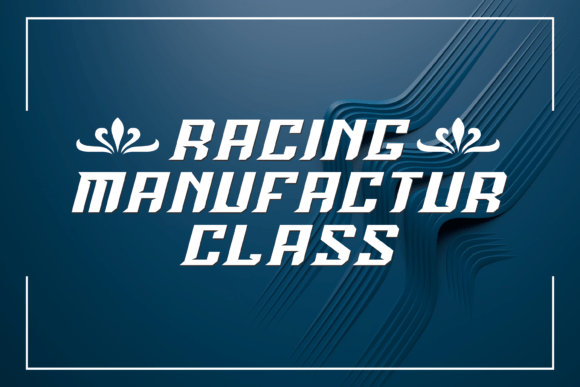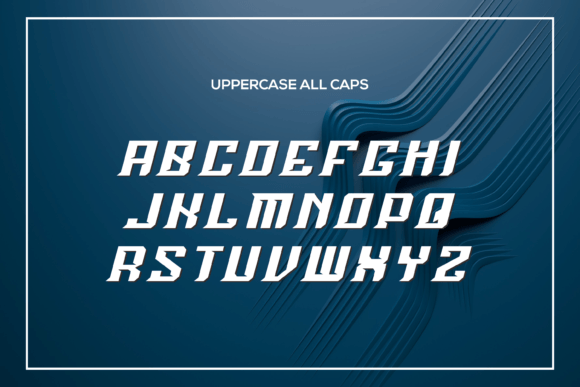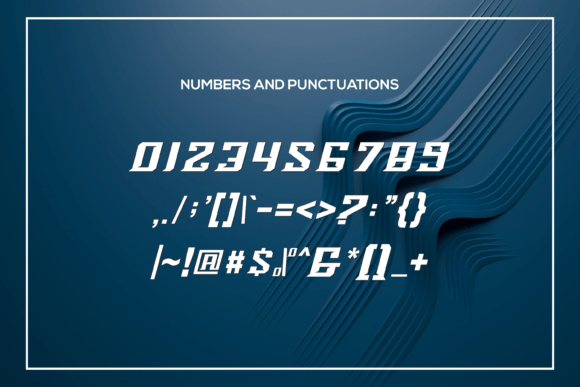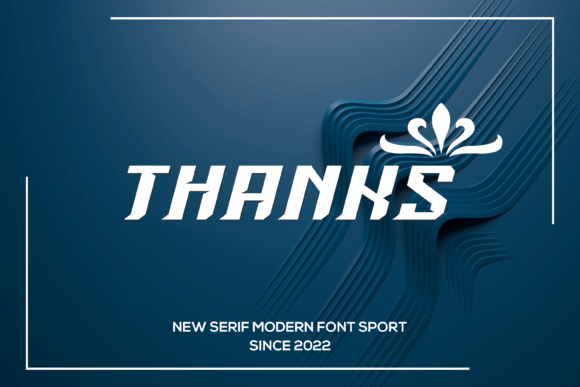
Copsonsport Font: The Ultimate Choice for Sporty Designs
Copsonsport is a cool and modern display font that can elevate your sporty projects to the next level. With its sleek and dynamic design, this font is perfect for designers and crafters looking to add a touch of athleticism to their work. In this article, we’ll explore the features and benefits of Copsonsport, and why it’s the ultimate choice for your sporty designs.
What is Copsonsport Font?
Copsonsport is a display font designed specifically for sports-related projects. Its modern and edgy design makes it perfect for creating bold and eye-catching headlines, titles, and slogans. The font is carefully crafted to convey a sense of energy, movement, and dynamism, making it ideal for sports branding, posters, flyers, and social media graphics.
Key Features of Copsonsport Font
- Modern and Edgy Design: Copsonsport boasts a sleek and contemporary design that’s sure to grab attention.
- Dynamic and Athletic Feel: The font’s unique style conveys a sense of energy and movement, perfect for sports-related projects.
- Highly Versatile: Copsonsport can be used for a wide range of applications, from posters and flyers to social media graphics and branding.
- Easily Readable: Despite its bold and edgy design, Copsonsport remains highly readable, even at smaller font sizes.
Benefits of Using Copsonsport Font
So, why should you choose Copsonsport for your sporty designs? Here are just a few benefits of using this amazing font:
- Stand Out from the Crowd: With Copsonsport, you can create bold and eye-catching designs that will set you apart from the competition.
- Convey a Sense of Energy and Movement: The font’s dynamic design perfectly captures the spirit of sports and athleticism.
- Save Time and Effort: Copsonsport is easy to use and customize, saving you time and effort in the design process.
- Perfect for Social Media: The font’s modern and edgy design is perfect for social media graphics, where you need to grab attention quickly.
How to Use Copsonsport Font
Using Copsonsport is easy and straightforward. Here are a few tips to get you started:
- Pair it with Other Fonts: Combine Copsonsport with other fonts to create a unique and visually appealing design.
- Experiment with Colors: Try out different colors and gradients to give your design a bold and dynamic look.
- Use it for Headlines and Titles: Copsonsport is perfect for creating bold and eye-catching headlines and titles.
In conclusion, Copsonsport is a cool and modern display font that’s perfect for sporty designs. With its sleek and dynamic design, this font can elevate your projects to the next level. Whether you’re a designer or crafter, Copsonsport is a great choice for anyone looking to add a touch of athleticism to their work. So why wait? Add Copsonsport to your design arsenal today and see the results for yourself!
- What is Copsonsport font?: Copsonsport is a modern and edgy display font designed specifically for sports-related projects.